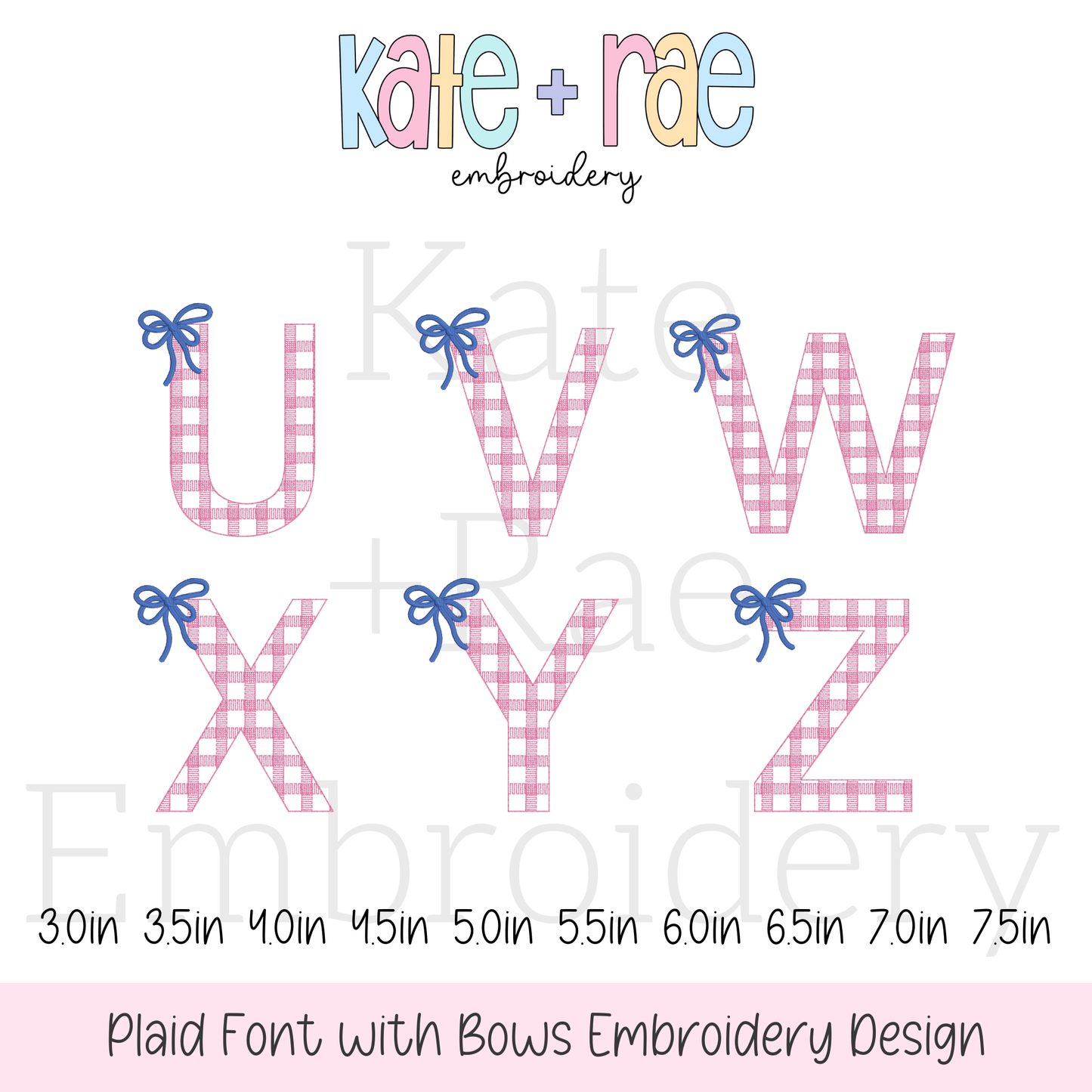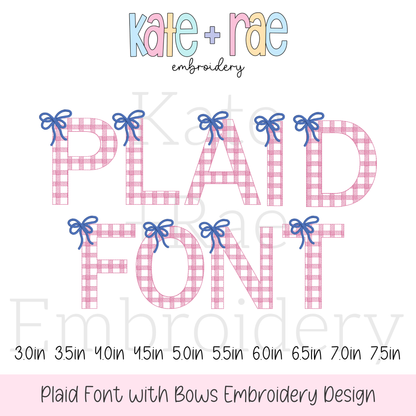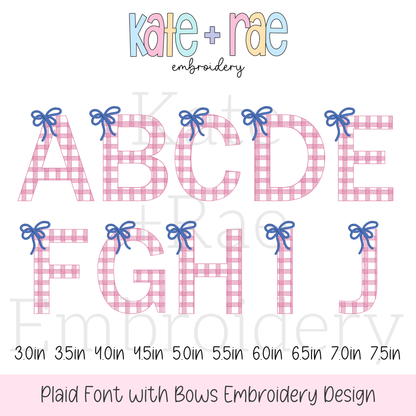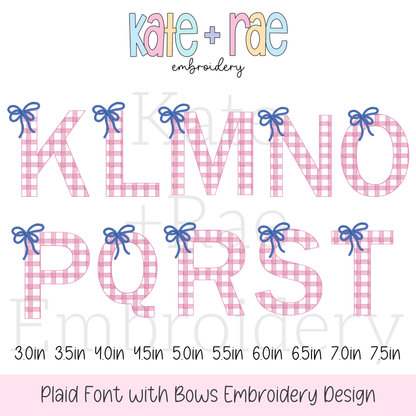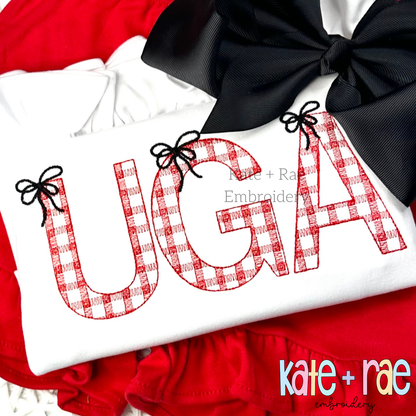
Plaid Embroidery Font with Bows
Meet Plaid with Bows, a plaid-filled embroidery font with sweet bow accents! Personalize names, monograms, sweatshirts, and girls' outfits.